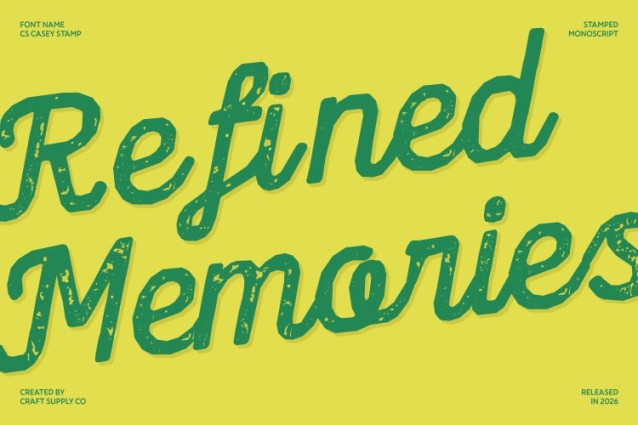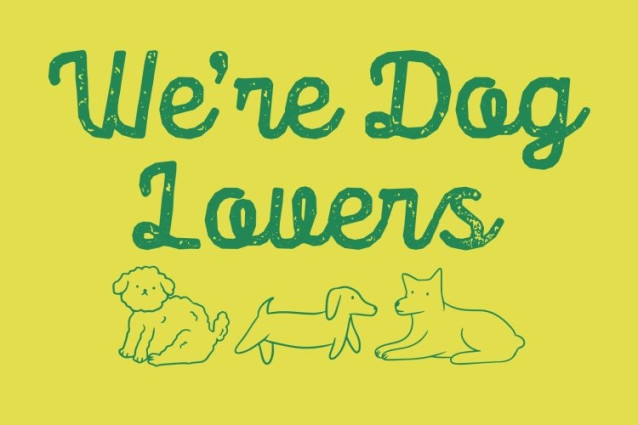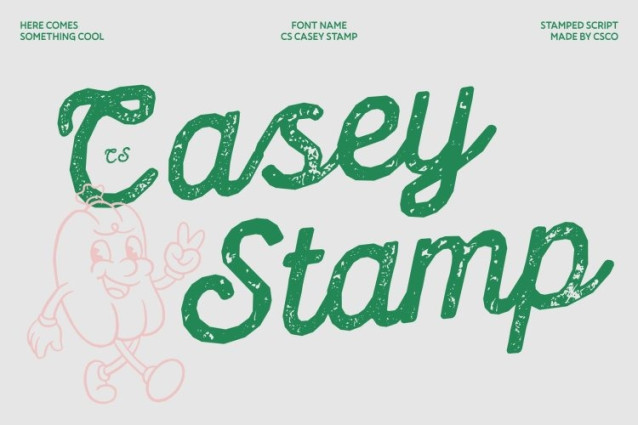
CS Casey Stamp Font
CS Casey Stamp Font is a modern script font that features a minimalist handwritten style with smooth, flowing strokes. Its refined letterforms create a soft and graceful rhythm that feels both modern and personal. Enhanced with a stamp effect, the font gains a subtle textured finish that introduces a handcrafted, vintage-inspired character while maintaining its clean and elegant structure.
Delicate Strokes with Artistic Texture
Each letter is carefully designed with gentle curves and neat connections that convey warmth and femininity. The stamp effect adds slight ink variations and distressed edges, giving the script a natural, printed feel reminiscent of traditional stamping techniques. This detail enriches the font’s personality while preserving its clarity and readability.
Elegant Charm for Stylish Designs
This font balances sweetness and sophistication. Its flowing structure provides an inviting, friendly tone, while the textured finish adds depth and artistic nuance. The result is a script font that feels both modern and timeless.
Perfect for Beauty, Lifestyle, and Creative Branding
Ideal for beauty branding, wedding invitations, packaging, café menus, social media graphics, and lifestyle design projects, adds a gentle yet distinctive touch to any composition. Its combination of modern handwritten elegance and vintage stamp texture makes it a versatile typeface for designs that seek warmth, charm, and refined personality.